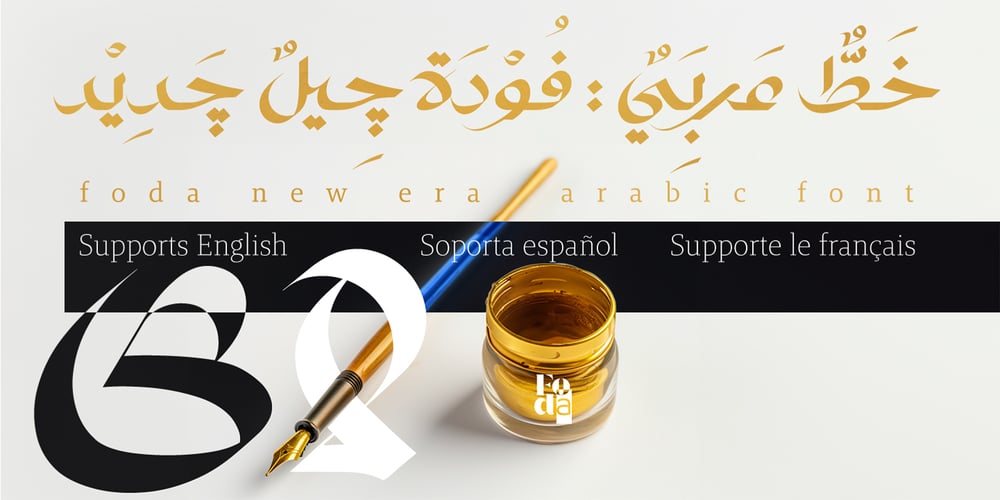
Foda New Era Arabic
Foda New Era Arabic font
Foda New Era Arabic Font Family was designed by Ahmed Eraqi, Nohamad Foda, Esraa Amer and published by Fo Da. Foda New Era Arabic contains 1 styles and family package options. Foda New Era is an Arabic modern calligraphy that is suited for branding, logos, packaging, advertising, social media designs, posters and more supported with Display Latin Glyphs.